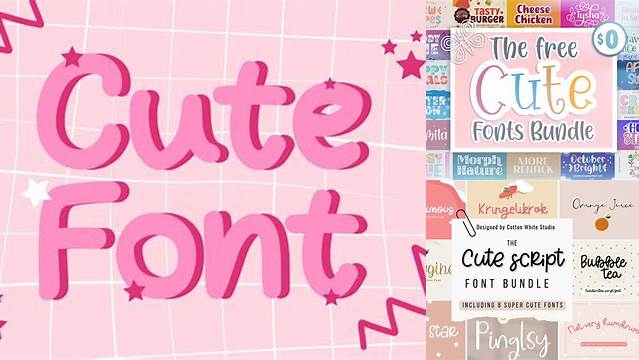
Cute Free Fonts: Download Charming Fonts For Your Designs
Hey guys! Are you looking to inject some personality and charm into your projects? Fonts are a crucial element in design, and choosing the right one can make all the difference. If you're on the hunt for something adorable and eye-catching, you've come to the right place. In this article, we'll explore a delightful collection of cute free fonts that you can download and use to add that special touch to your creative endeavors. Whether you're working on invitations, social media graphics, or a personal blog, these fonts will surely bring a smile to your audience's faces.
Why Use Cute Fonts?
Before we dive into the font options, let's talk about why using cute fonts can be a game-changer. In the vast world of typography, where serifs and sans-serifs often take the spotlight, cute fonts carve their niche by exuding a sense of warmth, playfulness, and approachability. They're not just about aesthetics; they're about the emotions and personality they bring to your designs. Think about it: a formal business document calls for a different font than a child's birthday invitation, right? Cute fonts fill that gap perfectly for projects that aim to be light-hearted, friendly, and engaging. These fonts can transform a simple text into an expressive visual element, capturing attention and setting the tone for your message. Using cute fonts can make your project stand out by adding a unique flair. They help create a visual identity that resonates with your target audience, making your work more memorable and impactful. For instance, a handwritten-style font can evoke a sense of personal touch, perfect for thank-you cards or heartfelt messages. A whimsical, cartoonish font can bring life to children’s books or posters, making the content more engaging and fun. The versatility of cute fonts means they can be used in various contexts, from digital designs to print materials, enhancing the overall appeal and effectiveness of your communication. Cute fonts are particularly effective in branding for businesses that aim to project a friendly and approachable image. Cafés, bakeries, and boutiques often use cute fonts in their logos and marketing materials to create a welcoming atmosphere. Bloggers and social media influencers also leverage cute fonts to add personality to their content, making it more relatable and engaging for their followers. The key is to choose a font that not only looks good but also aligns with the message you want to convey and the audience you want to reach. Ultimately, the choice of a cute font can elevate your designs, making them more expressive and visually appealing. This is not only limited to visual communication but to increase audience retention as well. It can subtly create a positive emotional connection with your audience, making your designs more impactful and memorable. So, whether you're designing a logo, creating social media graphics, or working on a personal project, consider the power of cute fonts to add that extra layer of charm and personality. Choosing the right cute font can transform your project, making it more engaging and visually appealing.
Top Picks for Cute Free Fonts
Okay, let's get to the good stuff! I've rounded up some of my absolute favorite cute free fonts that you can start using today. These fonts are perfect for a variety of projects, from crafting adorable invitations to designing eye-catching social media graphics. Each font has its unique charm, so you're sure to find something that fits your style.
1. Amatic SC
Amatic SC is a super versatile handwritten-style font that's tall, condensed, and oh-so-charming. It’s perfect for headlines, posters, and anything that needs a touch of handmade feel. The bold strokes and slightly quirky letterforms give it a friendly and approachable vibe, making it ideal for projects that aim to be both stylish and inviting. This font is a true workhorse, capable of adding a unique touch to a wide range of designs. It works exceptionally well in branding materials, such as logos and business cards, where you want to convey a sense of creativity and personality. The handwritten style of Amatic SC makes it feel personal and approachable, which can be a significant asset in establishing a connection with your audience. In the realm of web design, Amatic SC can add a touch of character to headers and call-to-action buttons, making your website stand out from the crowd. Its condensed form ensures that it remains legible even in smaller sizes, which is crucial for user experience. Social media graphics can also benefit from the charm of Amatic SC. Using it in your posts and banners can help your content grab attention and maintain a consistent brand aesthetic. The font's playful nature makes it particularly suitable for crafting announcements, event invitations, and promotional materials. Amatic SC’s strength lies in its ability to blend seamlessly into various design contexts, adapting to the project's needs while maintaining its unique character. Its handmade feel brings a sense of authenticity and warmth, which can be especially effective in marketing and branding efforts. Whether you're designing a blog header, creating a poster, or sprucing up a presentation, Amatic SC offers a reliable and stylish option that won't disappoint. The font's versatility and accessibility make it a favorite among designers and creatives who want to add a personal touch to their work without sacrificing professionalism. With its distinctive style and friendly appearance, Amatic SC can help elevate your designs and make your message more memorable.
2. Bubblegum Sans
If you're after a font that's bubbly and fun, Bubblegum Sans is your go-to. This rounded sans-serif font is bursting with personality, making it ideal for children's books, playful posters, and anything that needs a dose of whimsy. The soft, rounded edges of the letters give it a friendly and inviting feel, perfect for capturing the attention of young audiences and adding a cheerful touch to your designs. The font’s playful nature makes it an excellent choice for projects that require a lighthearted and approachable style. In the realm of branding, Bubblegum Sans can be particularly effective for businesses targeting families or children. Its cheerful appearance can help create a positive and memorable brand image, making it a valuable asset for companies in the education, entertainment, or toy industries. For digital designs, Bubblegum Sans can enhance the user experience by adding a touch of fun and accessibility. Using it in website headers, banners, and interactive elements can make your online presence more engaging and visually appealing. The font's rounded form also ensures that it remains legible on screens of all sizes, which is crucial for maintaining a professional and user-friendly website. Social media content can also benefit significantly from the playful charm of Bubblegum Sans. It's perfect for creating eye-catching graphics, announcements, and promotional materials that stand out in crowded feeds. The font's friendly vibe can help your content connect with your audience on a more personal level, fostering engagement and brand loyalty. Bubblegum Sans truly shines when used in materials related to children’s activities, such as storybooks, posters, and educational resources. Its lighthearted design can make learning and reading more enjoyable, encouraging children to interact with the content. The font's versatility allows it to be used in various design contexts, from print to digital, always maintaining its distinctive character and appeal. Whether you're designing a birthday invitation, creating a fun flyer, or developing a branding campaign, Bubblegum Sans provides a reliable and stylish option that can add a touch of magic to your projects. Its playful and approachable style makes it a favorite among designers and creatives who want to infuse their work with a sense of joy and excitement. With its distinctive personality and cheerful appearance, Bubblegum Sans can help elevate your designs and make your message more impactful and memorable.
3. Patrick Hand
Patrick Hand is another fantastic handwritten font that exudes a casual and friendly vibe. It's like a handwritten note from a friend, making it perfect for blog headers, invitations, and designs that need a personal touch. The slightly uneven lines and natural flow of the letters give it a genuine and relatable feel, setting it apart from more formal fonts. This font is an excellent choice for projects that aim to create a sense of intimacy and authenticity, inviting the audience to connect on a personal level. In branding, Patrick Hand can add a unique and approachable element to logos, business cards, and other marketing materials. Its handwritten style suggests creativity and individuality, making it ideal for businesses that value personal connections with their customers. Using Patrick Hand in your branding can help convey a sense of warmth and trustworthiness, which can be a significant advantage in building brand loyalty. For digital designs, Patrick Hand can enhance the user experience by adding a touch of human touch to websites and applications. It works particularly well in headers, subheadings, and call-to-action buttons, making your online presence more engaging and relatable. The font's casual style can also make your content more accessible, inviting visitors to explore your site and interact with your brand. Social media content can benefit immensely from the personal charm of Patrick Hand. It's perfect for creating graphics, announcements, and posts that feel genuine and approachable. The font's handwritten style can help your content stand out in crowded feeds, capturing the attention of your audience and fostering meaningful interactions. Patrick Hand's versatility makes it suitable for a wide range of design applications, from print to digital. It works beautifully in invitations, thank-you cards, and other personalized materials, adding a touch of warmth and sincerity. Its natural and unpretentious style can also enhance the appeal of blog headers, posters, and presentations, making your message more memorable. Whether you're designing a logo, creating social media graphics, or working on a personal project, Patrick Hand provides a reliable and stylish option that can add a human touch to your work. Its casual and friendly vibe makes it a favorite among designers and creatives who want to infuse their projects with personality and warmth. With its distinctive handwritten style and approachable appearance, Patrick Hand can help elevate your designs and make your message more impactful and memorable.
4. Indie Flower
For a whimsical and playful handwritten font, Indie Flower is a top choice. Its quirky letterforms and bouncy baseline give it a fun and carefree feel, perfect for adding a touch of personality to greeting cards, posters, and social media graphics. The font’s whimsical nature makes it an excellent option for projects that aim to be lighthearted and engaging, particularly those targeting younger audiences or creative communities. Indie Flower is particularly effective in branding for businesses that want to project a fun and approachable image. It can be used in logos, packaging, and marketing materials to create a distinctive and memorable brand identity. The font's playful style can help businesses stand out in a competitive market, attracting customers who appreciate creativity and originality. In digital design, Indie Flower can add a touch of personality to websites, blogs, and online stores. It works well in headers, banners, and other visual elements, making your online presence more engaging and inviting. The font’s unique character ensures that your website stands out from the crowd, leaving a lasting impression on visitors. Social media content can benefit significantly from the whimsical charm of Indie Flower. It’s perfect for creating eye-catching graphics, announcements, and posts that grab attention and foster engagement. The font's playful nature can help your content connect with your audience on a more personal level, encouraging them to interact with your brand. Indie Flower's versatility makes it suitable for a wide range of creative projects, from invitations and greeting cards to posters and presentations. Its quirky letterforms and bouncy baseline add a unique touch to any design, making it more expressive and memorable. The font’s playful style is particularly well-suited for projects that aim to evoke a sense of joy and creativity. Whether you're designing a birthday card, creating a promotional flyer, or developing a branding campaign, Indie Flower provides a reliable and stylish option that can add a touch of magic to your work. Its whimsical appearance and distinctive personality make it a favorite among designers and creatives who want to infuse their projects with fun and originality. With Indie Flower, you can elevate your designs and create a lasting impression on your audience.
5. Architects Daughter
Architects Daughter has a unique, slightly technical feel that's still incredibly cute. It's like a blueprint drawn with a playful hand, making it perfect for designs that need a touch of creativity and precision. This font is ideal for projects that blend a sense of imagination with a hint of technical expertise, creating a distinctive and engaging visual style. The font’s unique character makes it an excellent choice for branding materials, particularly for businesses in creative or technical fields. It can be used in logos, business cards, and websites to convey a sense of innovation and professionalism. The playful yet precise style of Architects Daughter helps create a memorable brand identity that stands out in a competitive market. In digital design, Architects Daughter can add a touch of sophistication to websites and applications. It works well in headers, navigation menus, and content sections, providing a clean and modern look with a hint of personality. The font’s legibility and distinctive design ensure that your online presence is both user-friendly and visually appealing. Social media content can also benefit from the unique charm of Architects Daughter. It’s perfect for creating graphics, announcements, and posts that convey a sense of creativity and expertise. The font’s playful yet technical style can help your content stand out in crowded feeds, capturing the attention of your audience and fostering engagement. Architects Daughter's versatility makes it suitable for a wide range of design projects, from posters and flyers to presentations and reports. Its unique character adds a touch of sophistication to any design, making it more expressive and memorable. The font’s blend of creativity and precision is particularly well-suited for projects that aim to convey a sense of innovation and professionalism. Whether you're designing a website, creating marketing materials, or developing a presentation, Architects Daughter provides a reliable and stylish option that can add a distinctive touch to your work. Its unique, slightly technical feel, combined with its playful hand-drawn style, makes it a favorite among designers and creatives who want to infuse their projects with originality and charm. With Architects Daughter, you can elevate your designs and create a lasting impression on your audience.
Tips for Using Cute Fonts Effectively
Now that you've got some adorable fonts at your fingertips, let's talk about using them effectively. Remember, even the cutest font can lose its charm if it's not used correctly. Here are a few tips to keep in mind:
- Balance is Key: Don't go overboard! A cute font can be fantastic for headings or accents, but using it for large blocks of text can make your design look cluttered. Pair it with a simpler font for body text to keep things readable.
- Consider Your Audience: Think about who you're designing for. A super whimsical font might be perfect for a children's birthday party invitation but not the best choice for a professional business card.
- Test It Out: Always test your font in different sizes and contexts to make sure it looks good. What looks cute at 24 points might be illegible at 10 points.
- Color Matters: The color of your font and background can significantly impact how the font looks. Experiment with different color combinations to find what works best.
Where to Use Cute Fonts
Cute fonts are incredibly versatile and can be used in a variety of projects. Here are some ideas to get your creative juices flowing:
- Invitations: From birthday parties to baby showers, cute fonts can add a special touch to your invitations.
- Social Media Graphics: Make your posts stand out with eye-catching and adorable fonts.
- Blog Headers: Give your blog a unique personality with a cute font in your header.
- Greeting Cards: Add a personal and heartfelt touch to your cards with a handwritten-style font.
- Kids' Projects: Children's books, posters, and educational materials can all benefit from the charm of cute fonts.